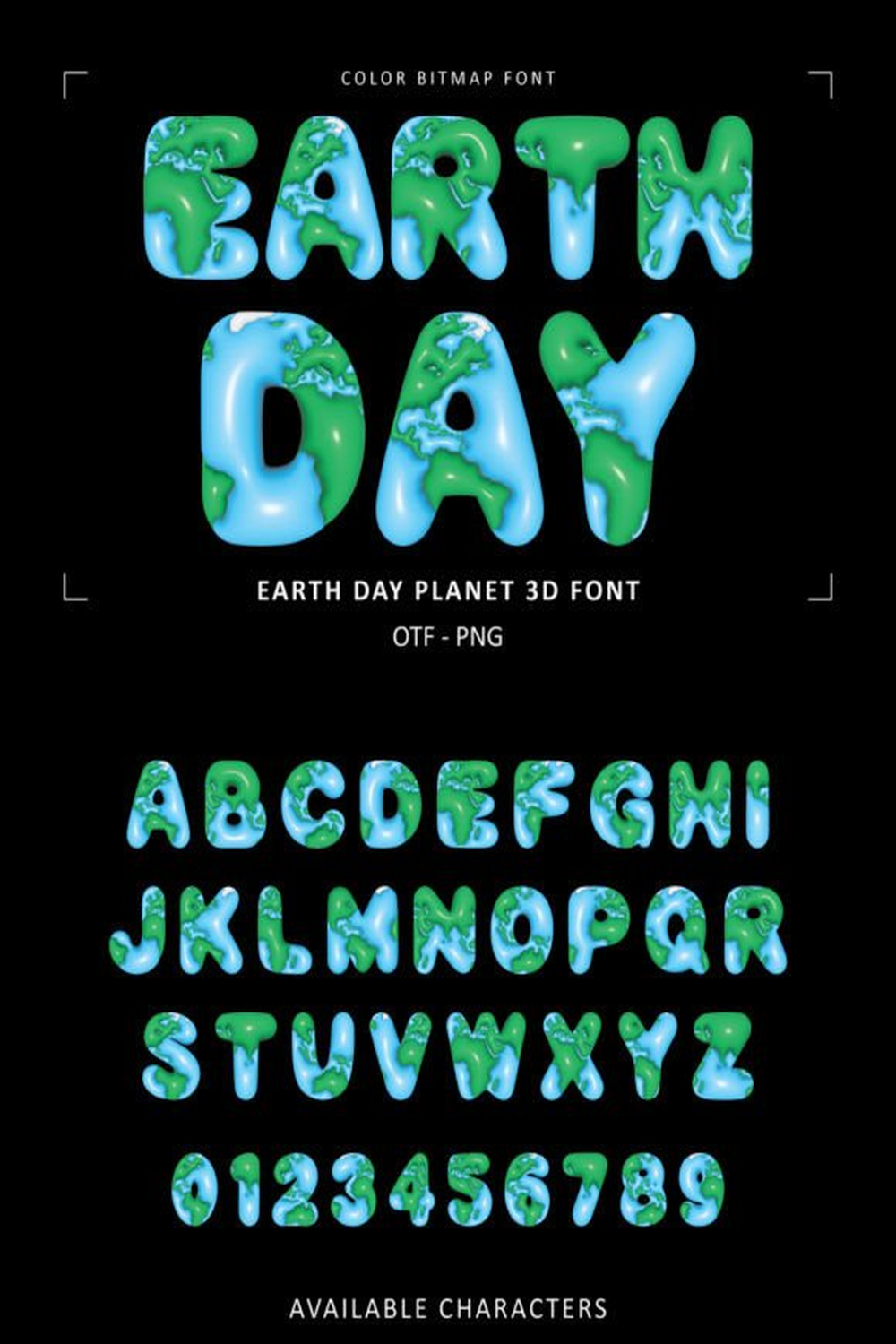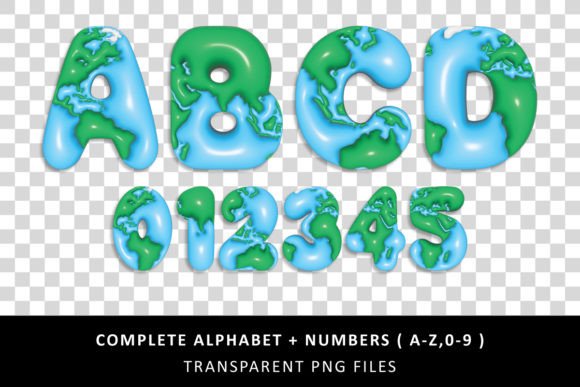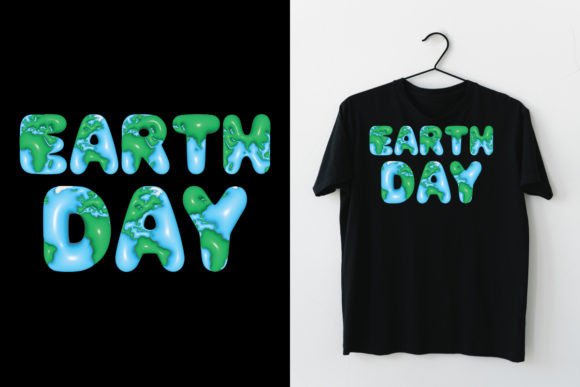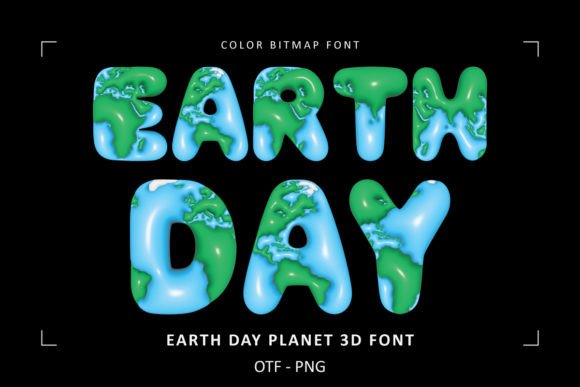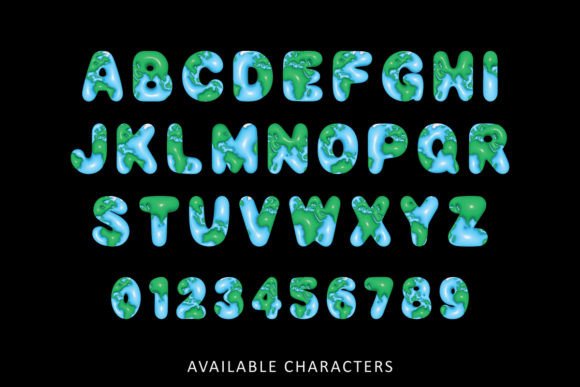
Earth Day Font
About the Earth Day Font
Crafted with precision, the Earth Day Font is ready to bring your ideas to life. Introducing a cool font named Earth Day Planet 3D Font. Earth Day event-themed fonts for you to use in your upcoming projects. This unique font will certainly make your designs stand out! First of all, it’s a color bitmap OpenType-SVG font that can be used as a usual OTF font. The resolution of capital letters in the OTF file is roughly 600 px in height. An included PNG file with a transparent background has around 3000 px height. Please consider that only the English language uppercase characters A-Z, and 0-9 numbers are available, please check out the screenshot with all existing characters.